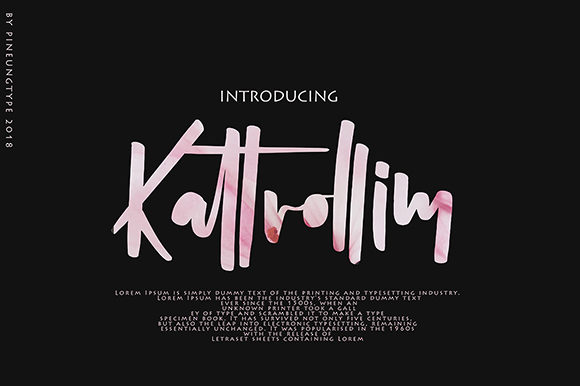
Kattrolim Font
Font Name : Kattrolim Font
Author : Pineungtype & Missinklab
Prepare yourself to be captivated by Kattrolim, an exquisite handwritten font that exudes a captivating vintage film aesthetic. Immerse yourself in its uniquely authentic essence, where every letter dances across the page with an enchanting charm.
Crafted with meticulous care by the talented Pineungtype & Missinklab, Kattrolim is not just a font; it's an invitation to let your imagination soar. Its graceful curves and playful strokes evoke a bygone era, inviting you to pen stories that resonate with timeless appeal.
Whether you're a seasoned designer or just starting your creative journey, Kattrolim is the perfect companion for your projects. Its versatility knows no bounds, lending an air of elegance to invitations, branding, social media posts, and any other design endeavor that calls for a touch of vintage flair.
With Kattrolim at your fingertips, you'll have the power to transform your words into captivating works of art. Its alluring vintage charm will add a touch of nostalgia to your designs, evoking a sense of warmth and authenticity that your audience will find irresistible.
But beyond its aesthetic beauty, Kattrolim holds a deeper allure. It's a font that speaks to the heart, evoking emotions that connect with your audience on a profound level. Its handwritten quality creates an intimate connection, as if each word were penned with a personal touch.
So why settle for ordinary fonts when you can immerse yourself in the captivating world of Kattrolim? Let its vintage charm inspire your creativity, add a touch of authenticity to your designs, and connect with your audience in a way that's both meaningful and memorable.
Embrace the allure of Kattrolim today and embark on a creative journey that will leave an unforgettable mark on your audience.